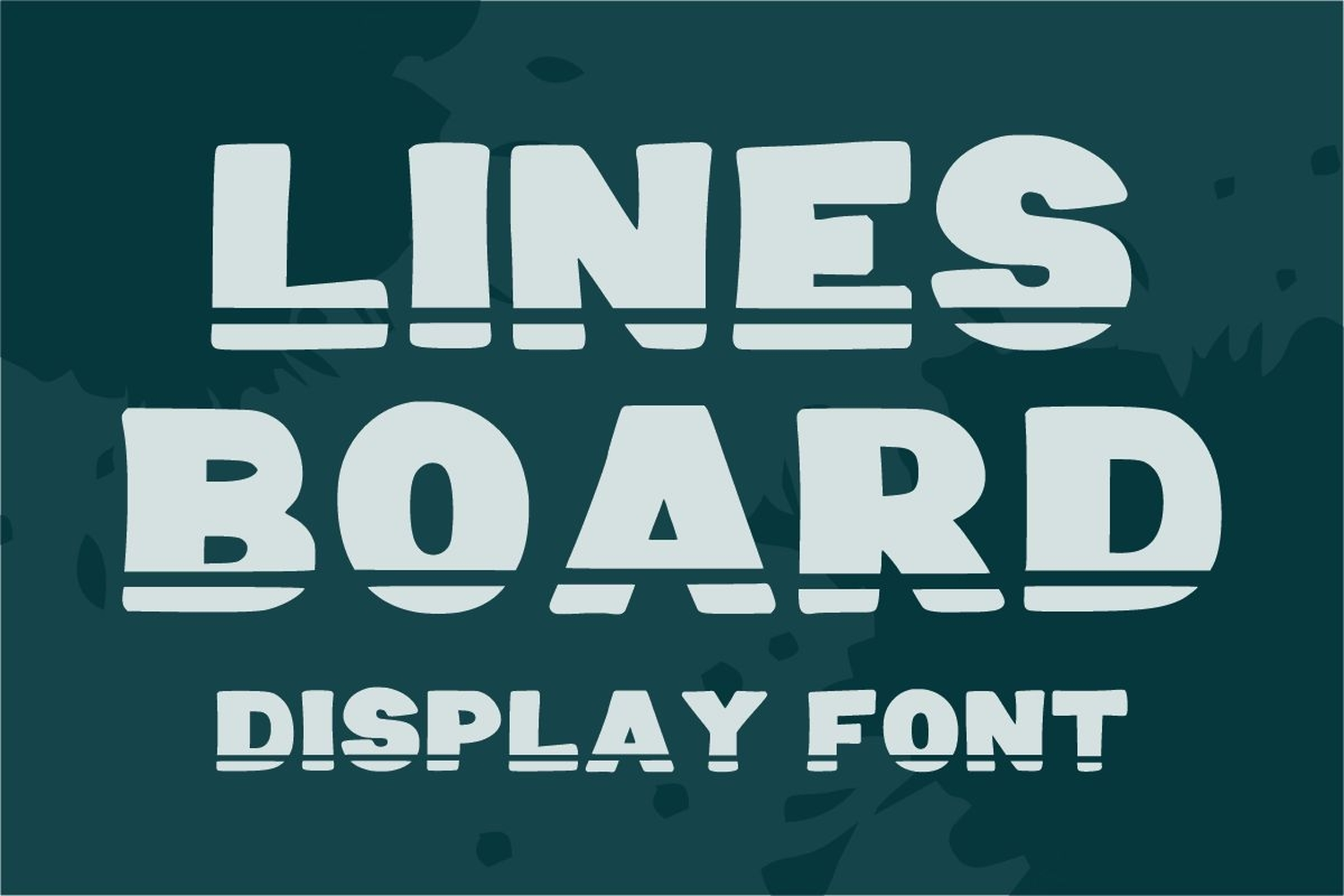
Lines Board
Lines Board is bold display font with 1 line shape elements. It is suitable for any winter and holiday branding project, product packaging, invitation, quote, t-shirt, label, poster, text effect, label, and logo that you wish to develop.